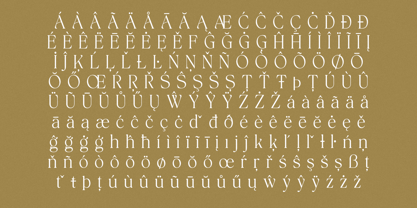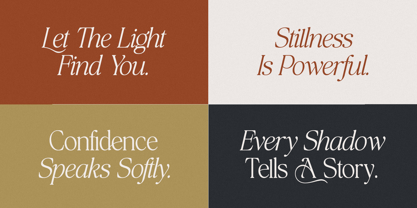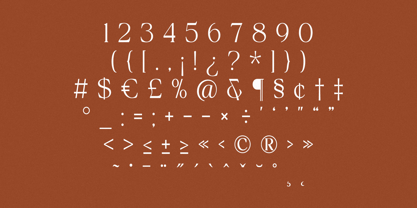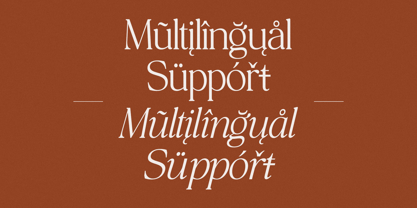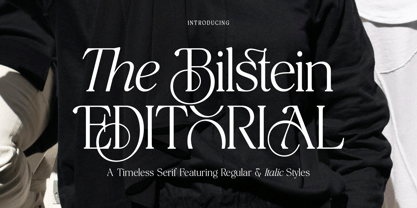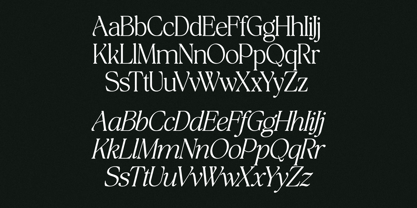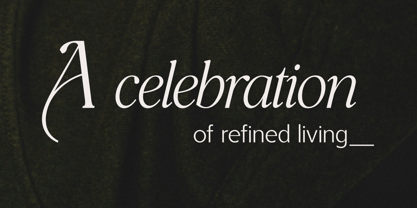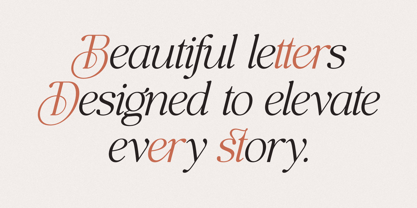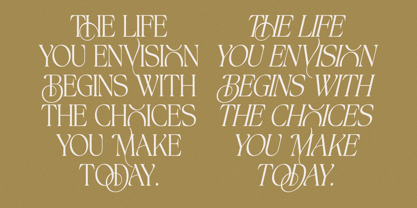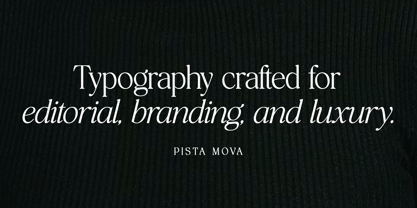
The Bilstein Editorial
by Pista Mova
The The Bilstein Editorial Font Family was designed by Haikal Juanda and published by Pista Mova. The Bilstein Editorial contains 4 styles and family package options. More about this family
The Bilstein is a refined editorial serif typeface that blends timeless elegance with modern sophistication. Designed with graceful high-contrast strokes, distinctive curves, luxurious letterforms, and beautifully crafted ligatures and alternates, it brings an elevated aesthetic to every project. Its carefully designed details make it an ideal choice for editorial layouts, fashion branding, luxury packaging, premium logos, magazine headlines, invitations, and contemporary visual identities.
The family includes Regular and Italic styles, allowing designers to create expressive typography with effortless harmony and contrast. Featuring elegant ligatures and stylish alternate characters, The Bilstein offers greater creative flexibility, making it easy to craft unique and sophisticated typographic compositions. Whether used for bold headlines or elegant body text, The Bilstein delivers exceptional readability while maintaining its distinctive editorial personality.
Fully optimized for both print and digital use, The Bilstein is suitable for branding projects, websites, social media, advertising, and creative publications.
• Timeless Editorial Serif
• Regular & Italic Styles
• Elegant High-Contrast Letterforms
• Beautiful Ligatures
• Stylish Alternates
• Luxury & Fashion Inspired
• Perfect for Branding, Editorial, Logos & Packaging
• Works Beautifully in Print and Digital
• Latin Character Set Pro
• Punctuation & Numerals
• Multilingual Support